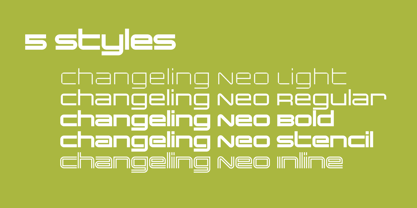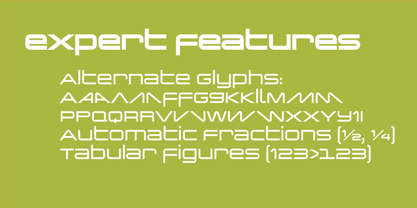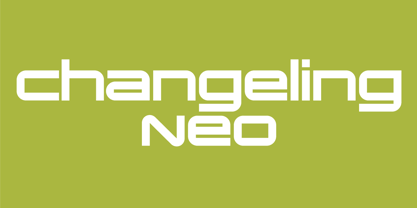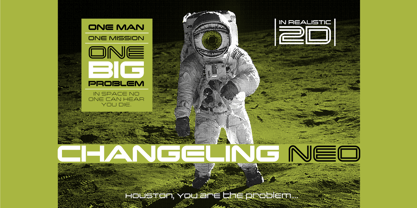
Changeling Neo
por Mark Simonson Studio
A família de fontes Changeling Neo foi desenhada por Mark Simonson e publicada pela Mark Simonson Studio. Changeling Neo contém 5 estilos. Saiba mais sobre esta família
Changeling Neo is an expanded and enhanced version of Changeling (2003) which in turn was a redesign and expansion of China, a Visual Graphics Corporation typeface from the mid 1970s designed by M. Mitchell. Changeling Neo includes even more alternate characters and typographic features, accessed through the magic of OpenType.
Designers: Mark Simonson
Fundição: Mark Simonson Studio